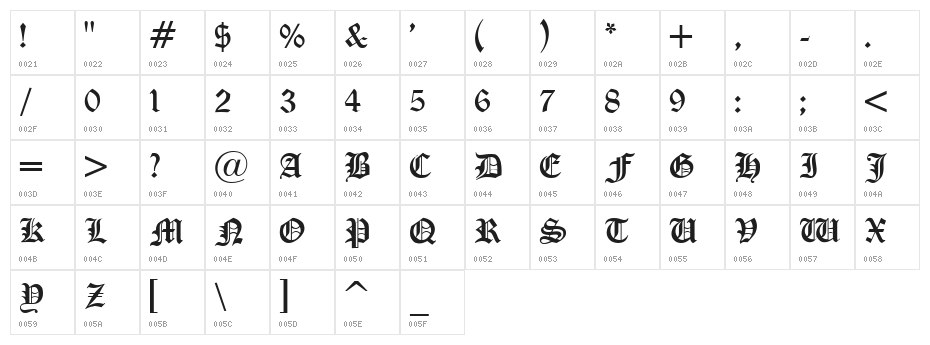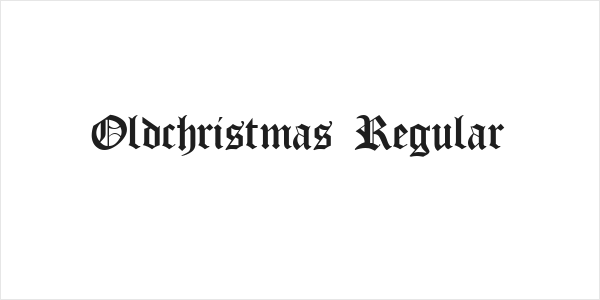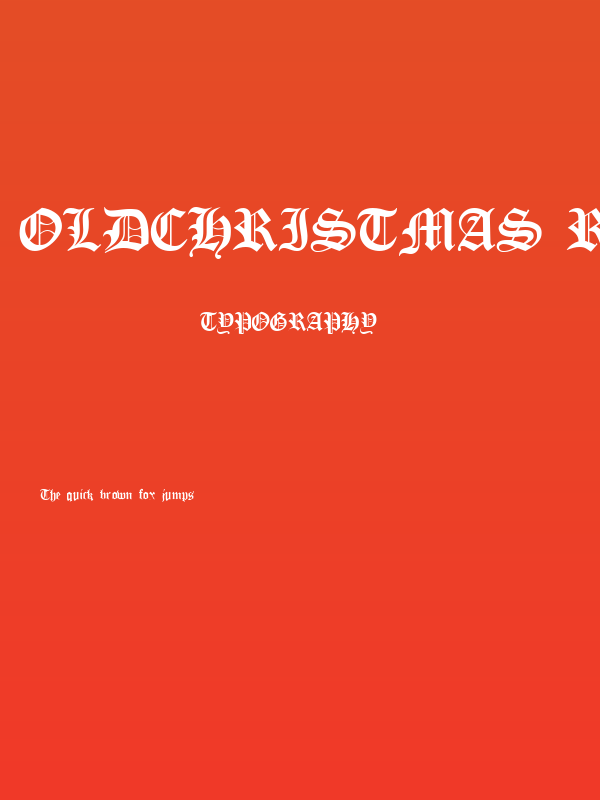
Oldchristmas Regular Font
Oldchristmas Regular Description
This font features a classic blackletter style, reminiscent of traditional calligraphy with its ornate and intricate design. The characters are bold and have a distinct medieval appearance, characterized by sharp angles and elaborate serifs. The uppercase letters are particularly decorative, with flourishes that add a touch of elegance. The lowercase letters maintain the same level of detail, ensuring consistency throughout the typeface. Numbers and special characters are designed to match the overall aesthetic, making this font suitable for projects that require a historical or gothic feel.
| Use Case | Headlines, Logos, Decorative text |
| Proposed Projects | Ideal for historical documents, gothic-themed designs, book covers, and event invitations. |